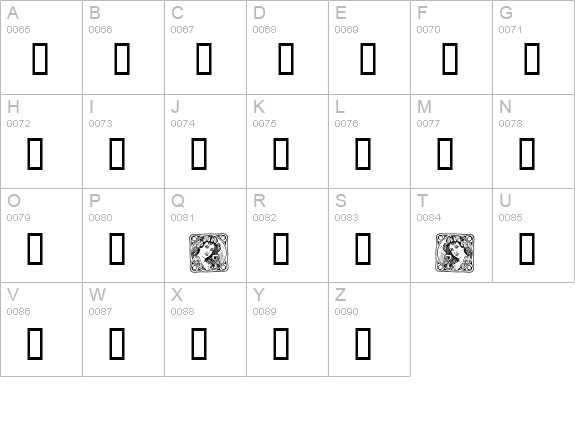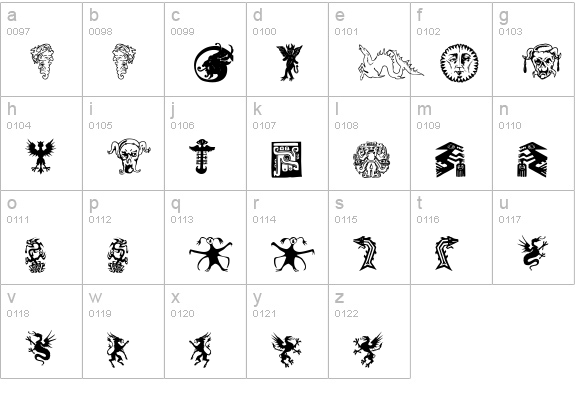
Devils and Dragons Font Details
Devils and Dragons font is a captivating and bold typeface that exudes a sense of mystery and power. Its sharp edges and intricate details give it a unique and edgy look, perfect for projects that require a touch of dark elegance. The font's intricate design is reminiscent of ancient scripts and mythical creatures, making it a great choice for fantasy-themed designs and projects. This striking font is available for free download at FontsMarket.com, where you can easily access and add it to your font collection. Whether you're working on branding, posters, invitations, or any other creative project, Devils and Dragons font will bring a touch of magic and intrigue to your designs. Embrace the dark side with this enchanting typeface and let your creativity soar.